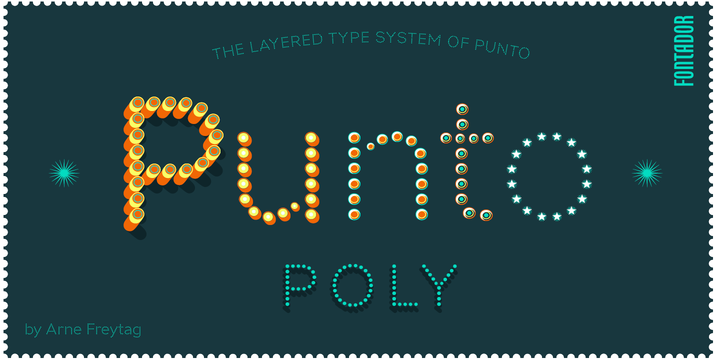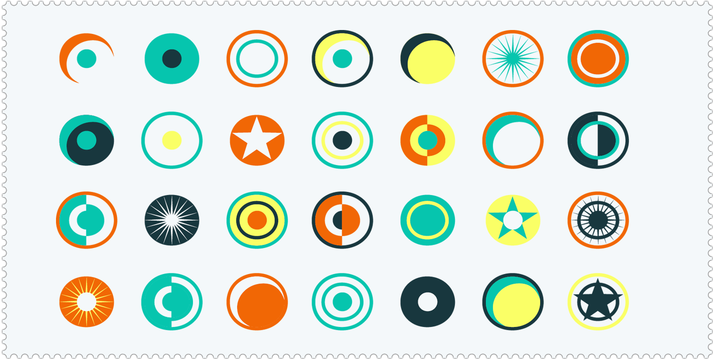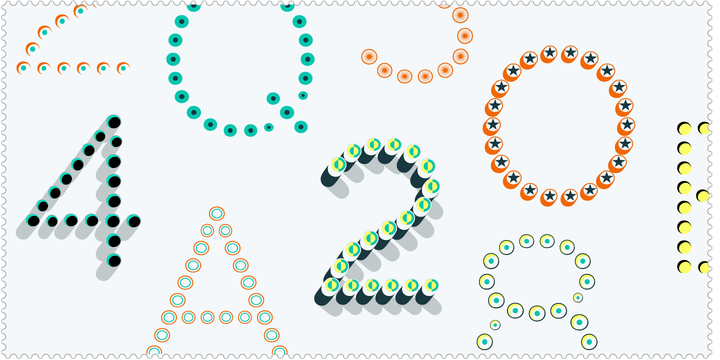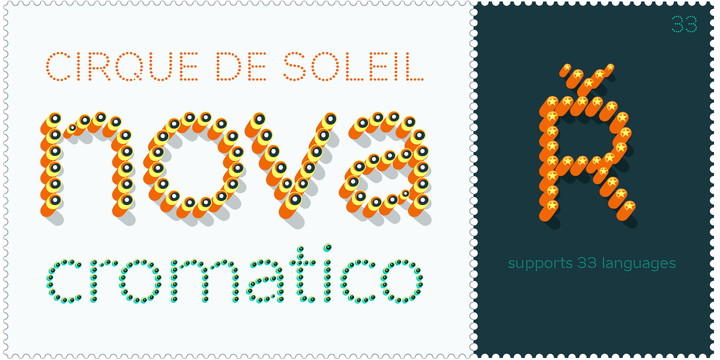
Punto Poly is the layered type system of Punto for cromatic typesetting. Endless effects can be created by 11 stackable layers and different colors. The dots of Punto Poly are not made up of grid-based dots, they are optical corrected and there is always the same distance between the dots, with the aim to create more harmonic letterforms.
The dots also vary gradually in size to reflect the thickening and thinning of strokes, giving the letterforms a sophisticated overall look.
Punto Poly comes up with 11 layer system and is perfectly suited for logos, posters, brands and magazines.
The language support includes Western, Central and Eastern European character sets, as well as Baltic and Turkish languages.